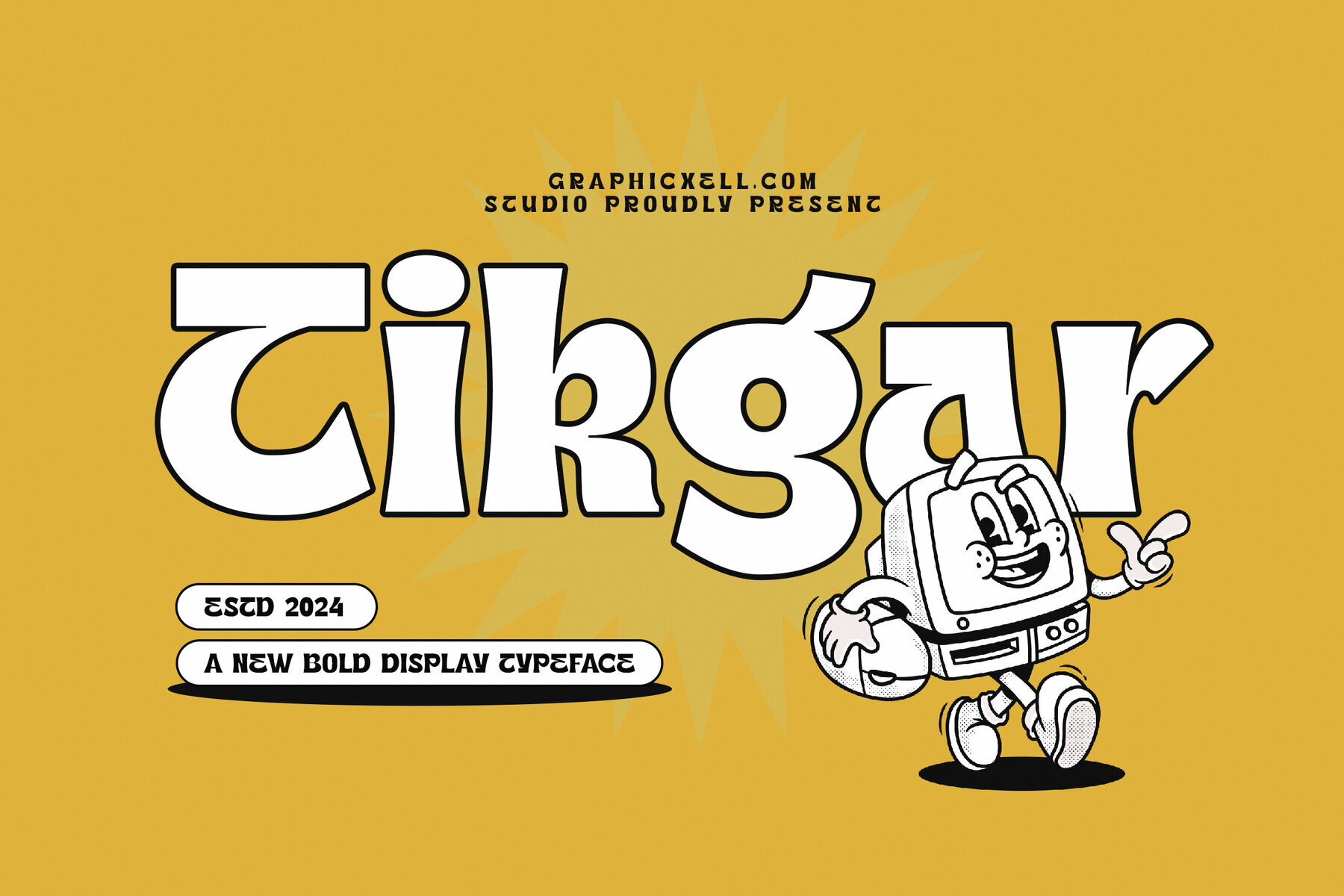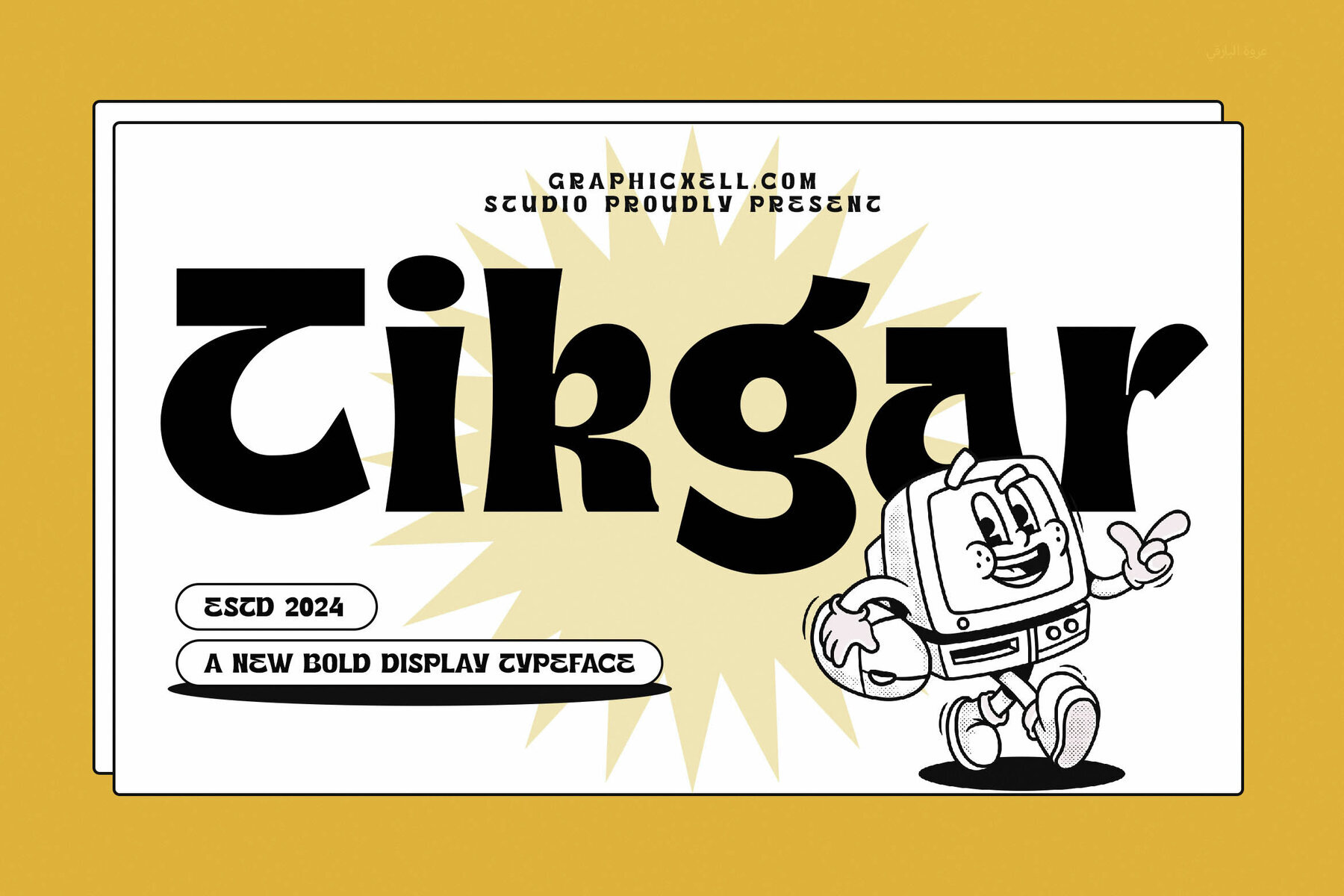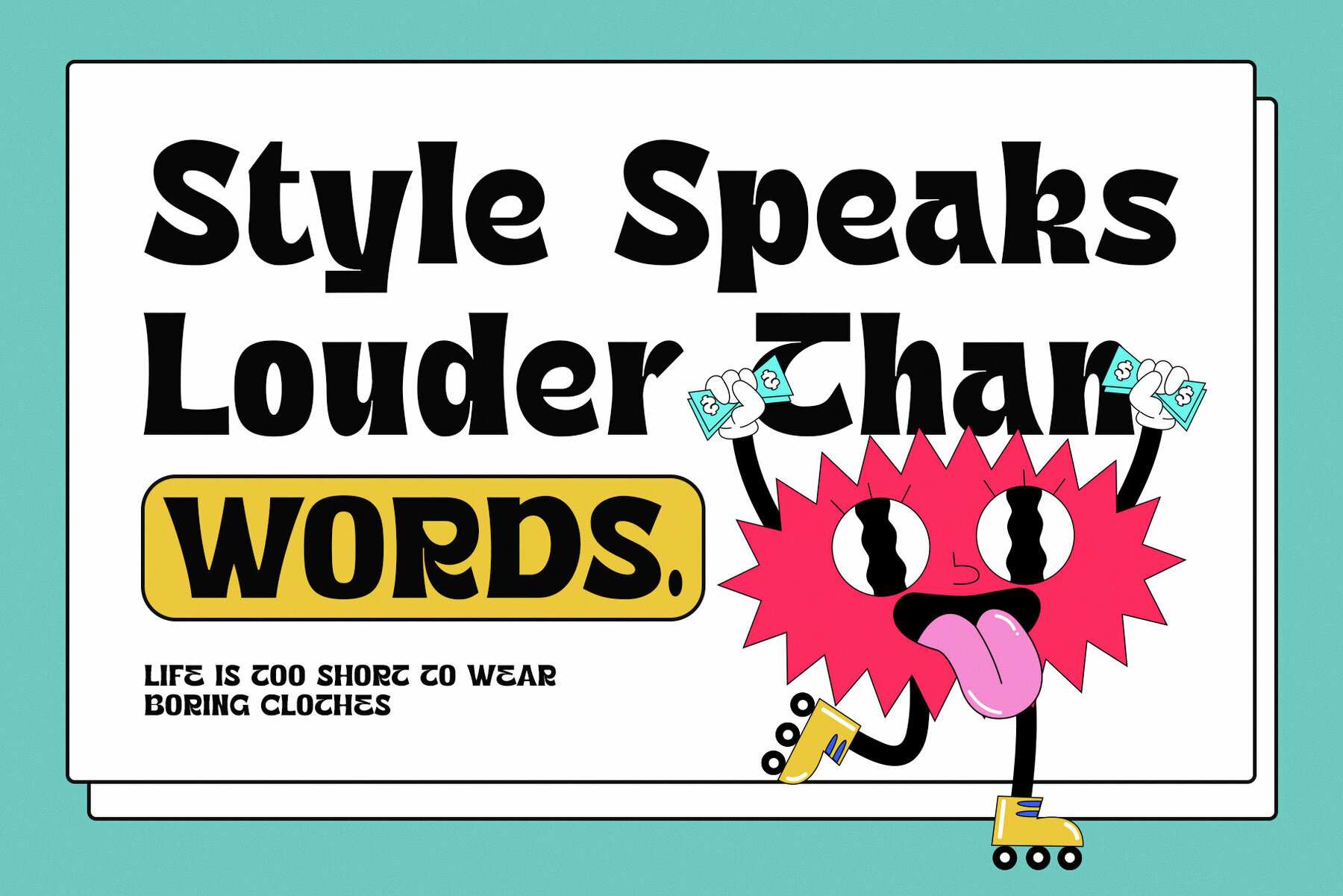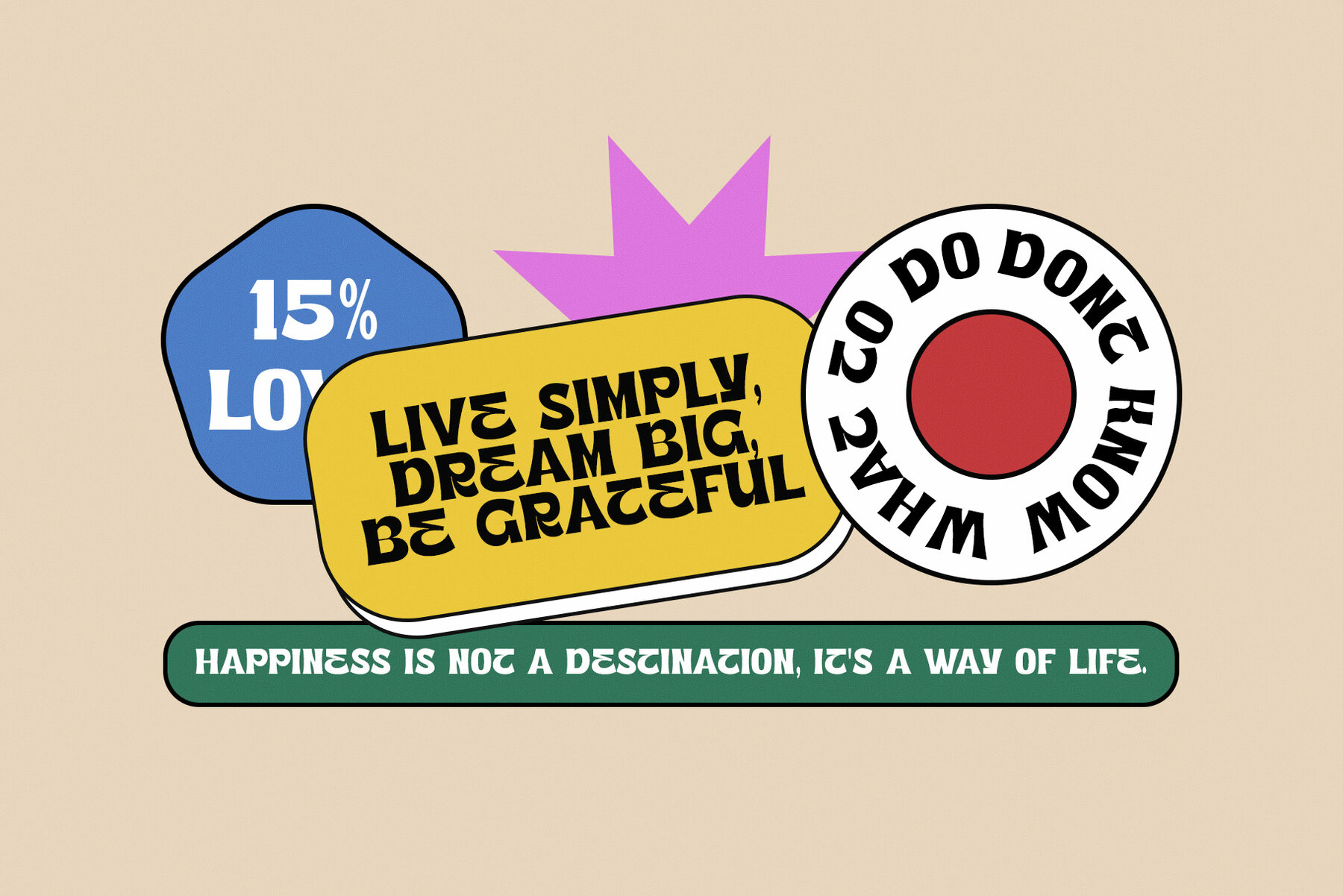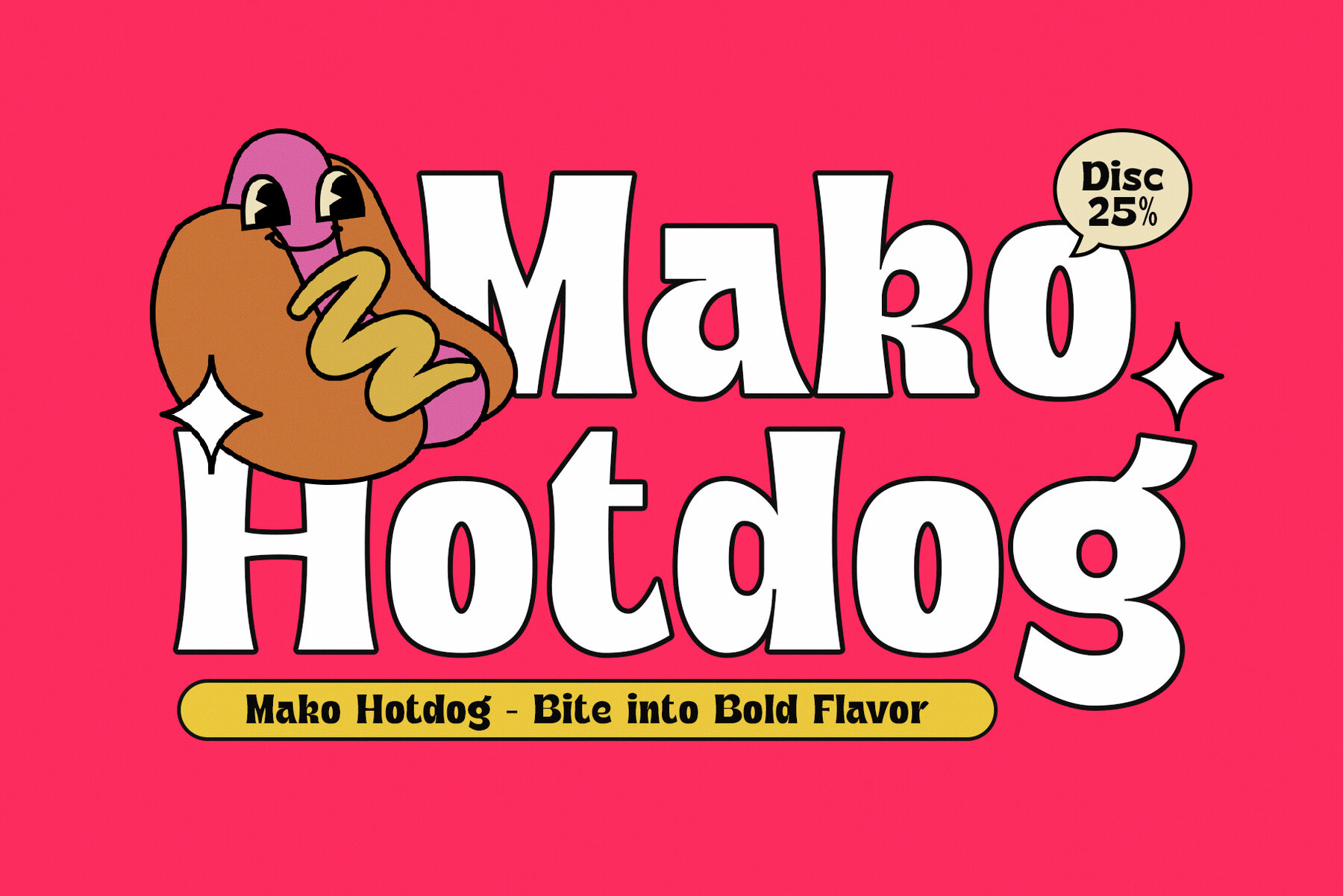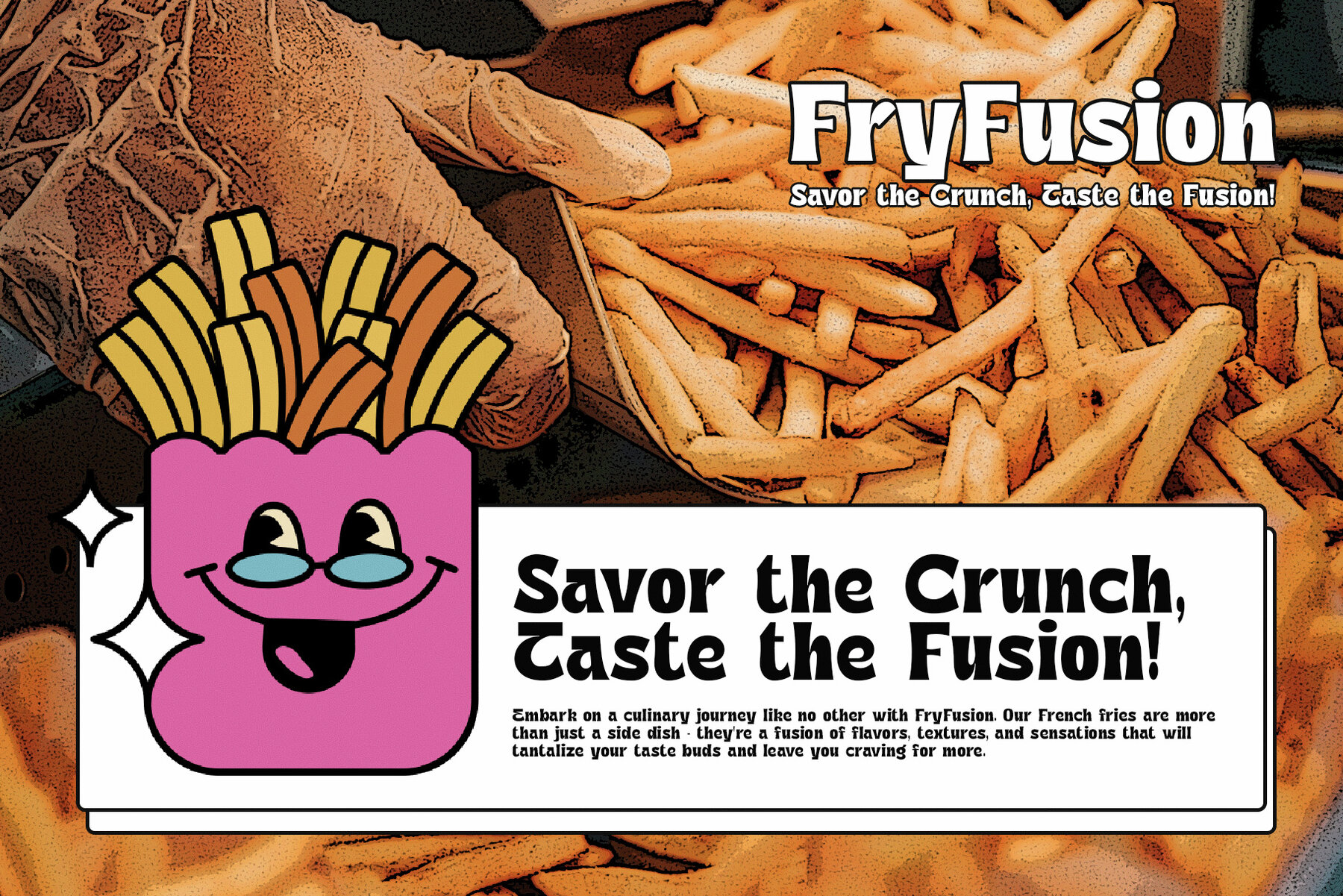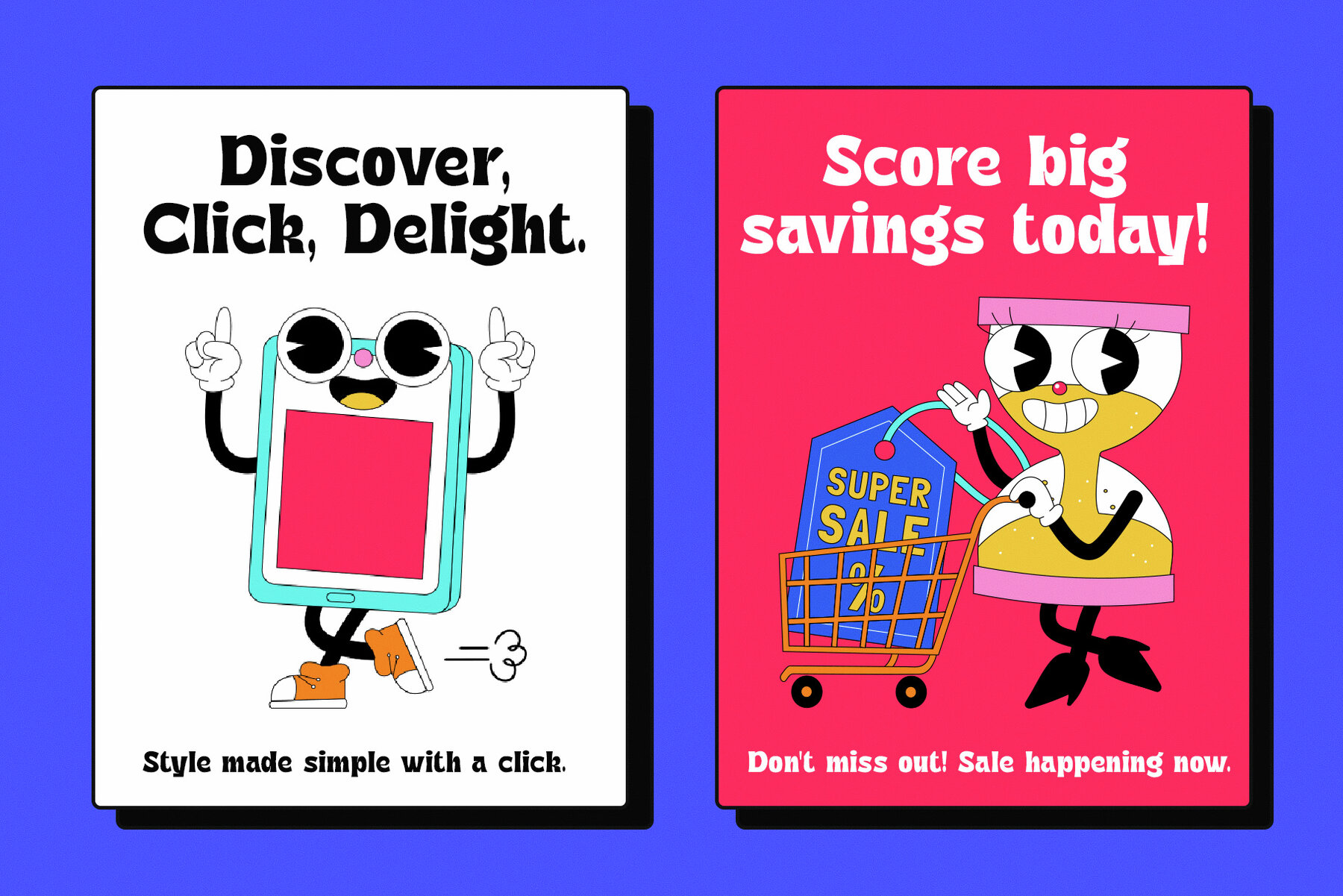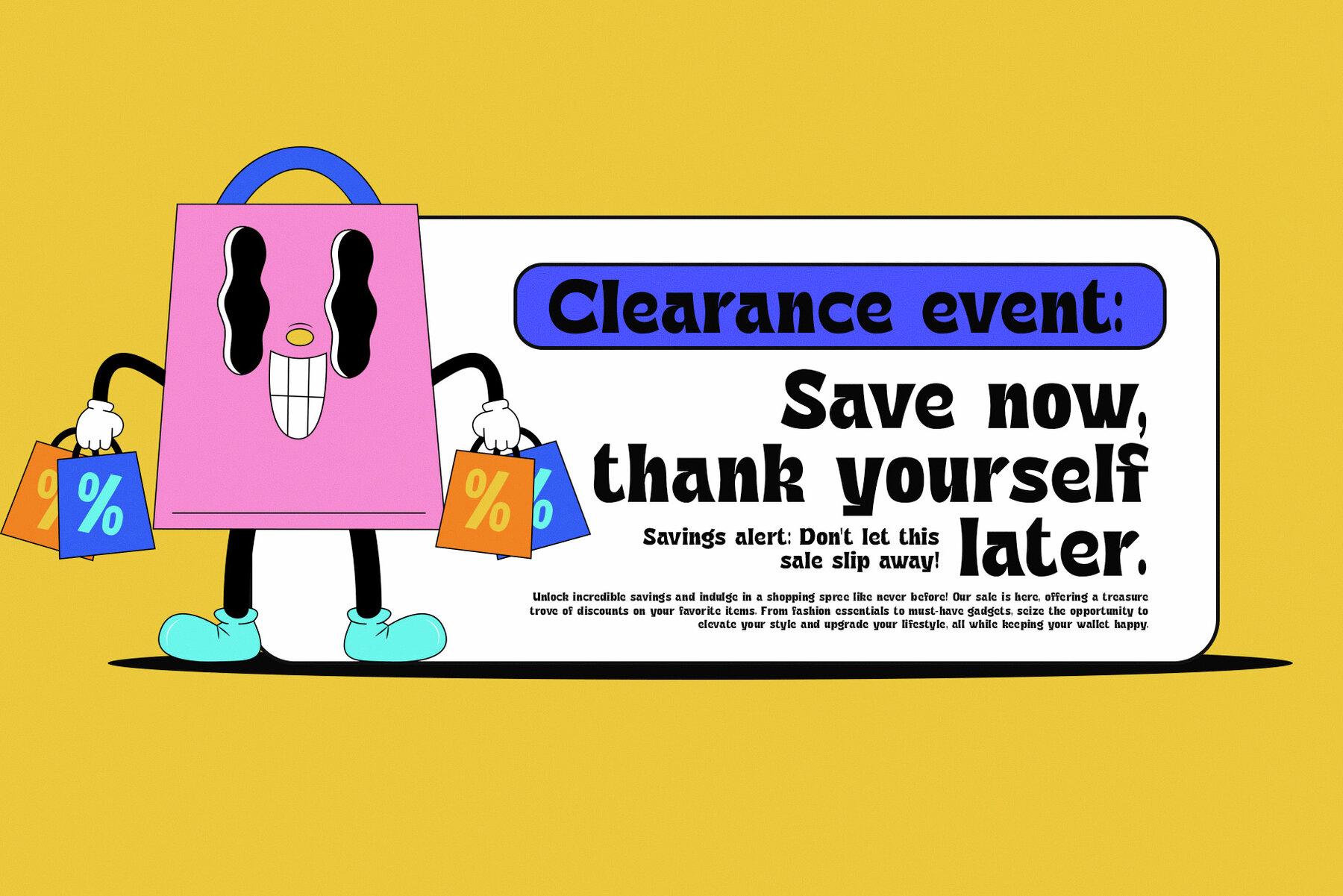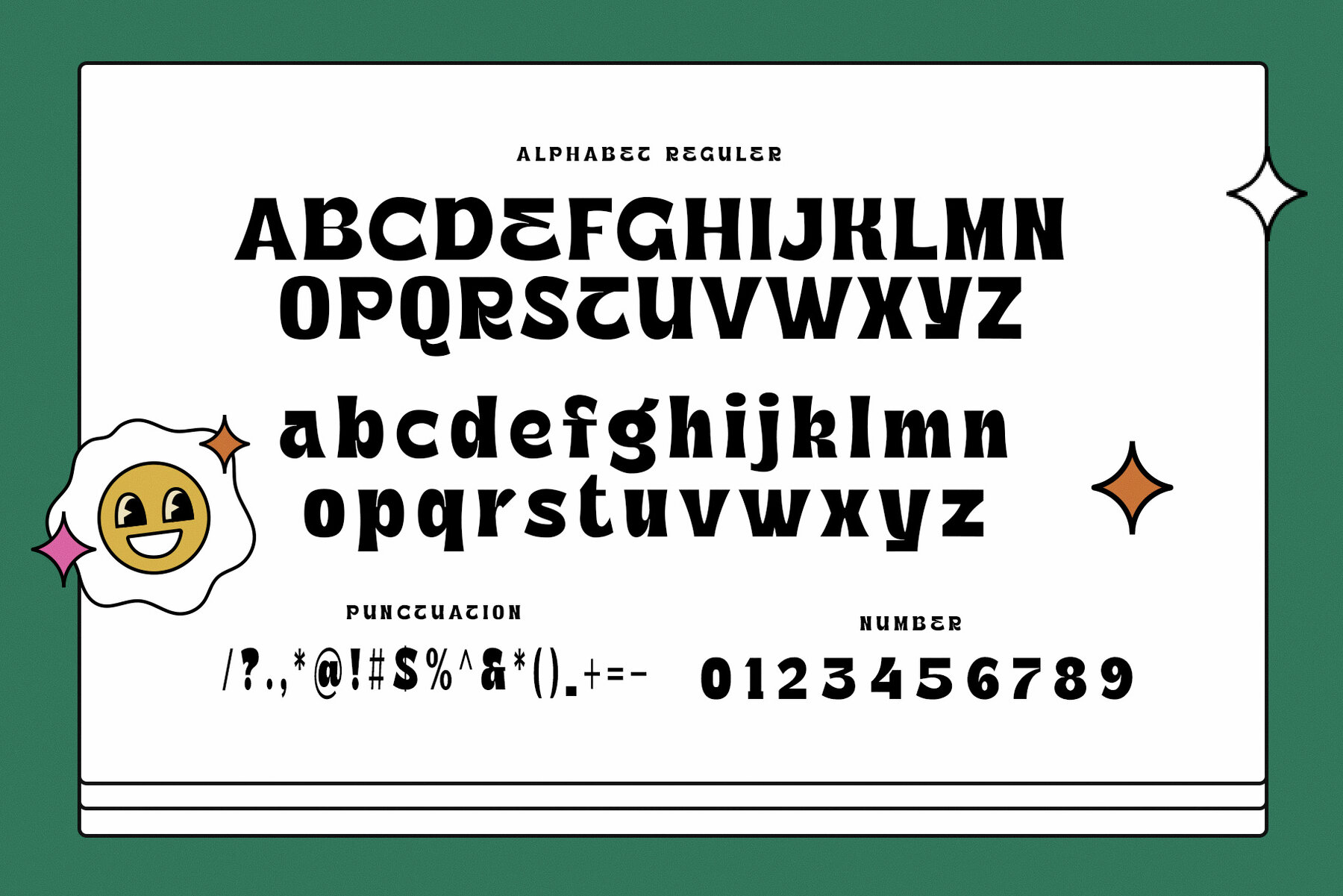
Tikgar Font
Tikgar Regular
Tikgar Retro Display Font offers a balanced and symmetrical rhythm, blending retro and vintage styles seamlessly. This serif typeface is ideal for graphic design projects, thanks to its unique shape and precise proportions. Tikgar features subtle contrasts and contours, providing an impressive yet minimalistic and elegant look. Its versatile design makes it perfect for various applications, including games, post templates, posters, layout designs, magazines, logos, ad branding, videos, and brochures.
This typeface includes character standards, numerals, punctuation, and accented characters for West Europe, ensuring compatibility with both PC and Mac systems. Tikgar Retro Display Font is a valuable addition to any designer’s toolkit, suitable for both beginners and professionals seeking a captivating and cool typeface. Maximize your design potential with this unique and stylish font.